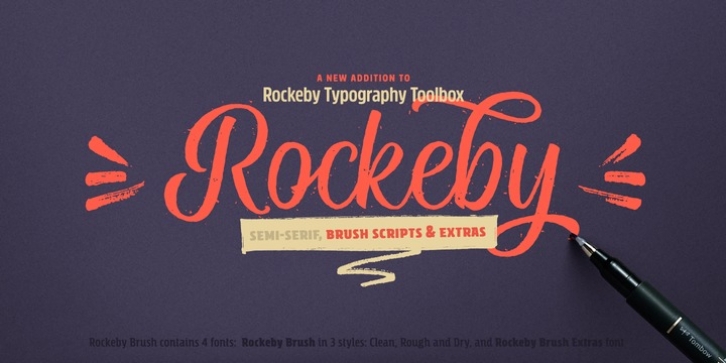
Rockeby Brush is a new font family that joins a well known collection - Rockeby Typography Toolbox. It contains 3 brush fonts - Dry, Rough and Clean - and a Brush Extras font that contains different design elements and graphic to complement your design whether it is a logo, website or a more complex design project. The Rough Brush font has a unique feature - the grunge texture that is applied not only to the letters but to the surrounding space as well.